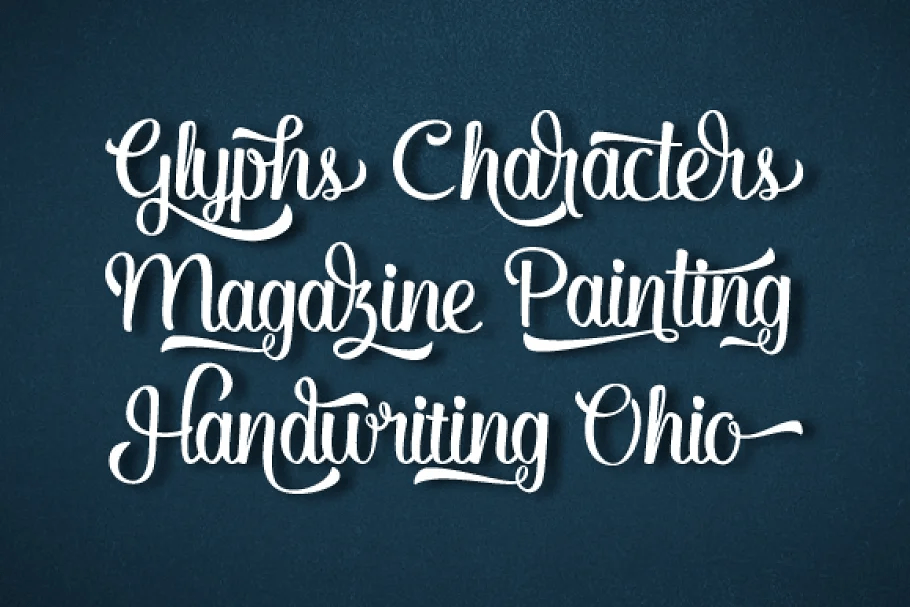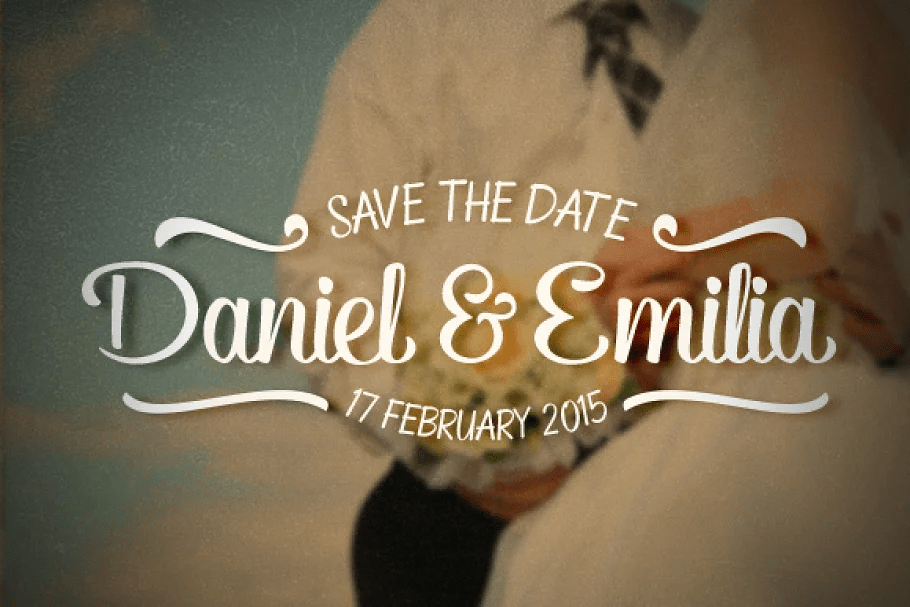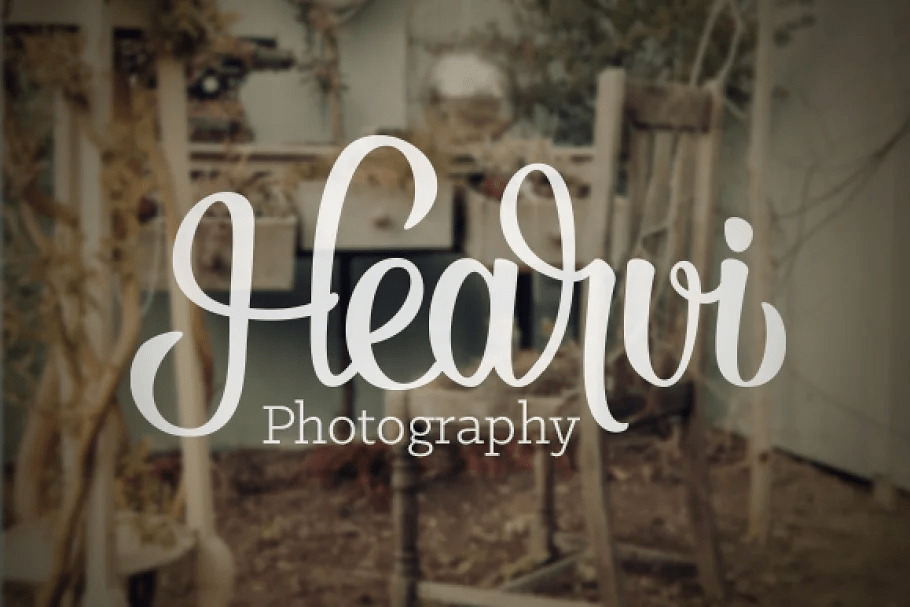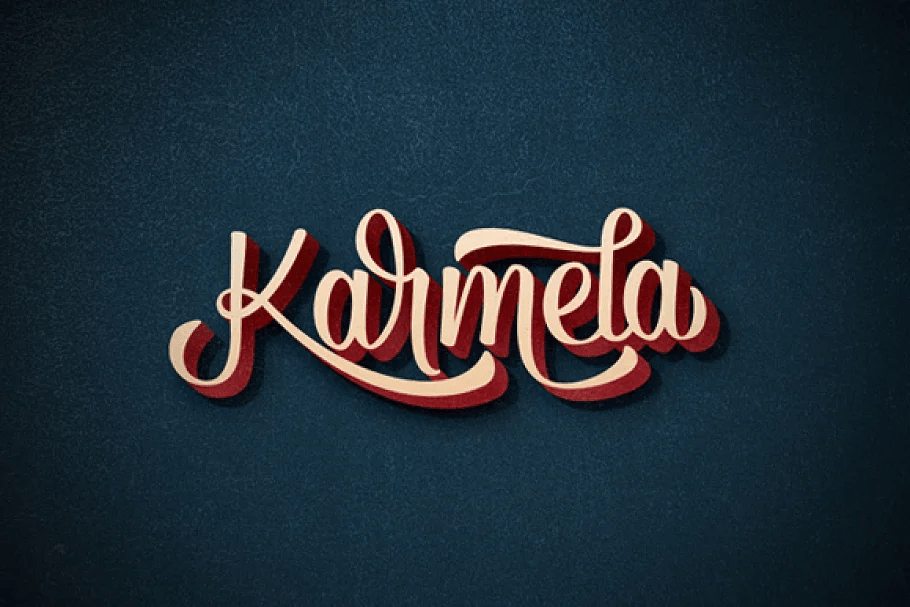
About Karmela
Hello! We want to introduce you Karmela Script. A typeface that pays tribute to all letterers that created amazing signs in magazines, walls and windows through the brush lettering during many years, especially in the 50s and 60s. This font is 100% based…